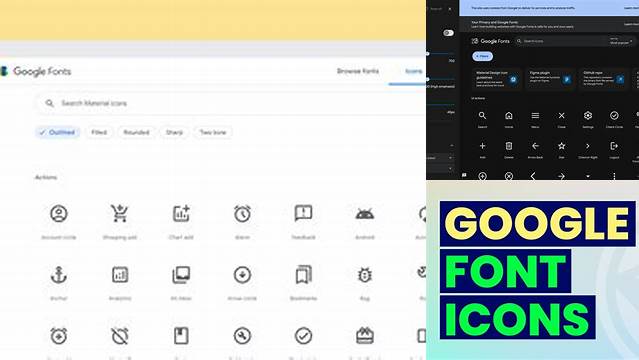
Link Google Fonts & Material Icons: A Comprehensive Guide
Hey guys! Ever wondered how to spice up your website's typography and icon game? Well, you've stumbled upon the right place! In this comprehensive guide, we're going to unravel the mysteries of linking Google Fonts using the <link href> tag and explore the awesome world of Material Icons. Buckle up, because we're about to embark on a journey to make your website visually stunning!
Understanding Google Fonts and Why They Matter
Google Fonts are a game-changer for web developers and designers. They offer a vast library of free, open-source fonts that you can seamlessly integrate into your website. Gone are the days of relying solely on system fonts, which often look bland and uninspired. With Google Fonts, you have the power to choose from a diverse range of typefaces, each with its unique personality and style. Why do Google Fonts matter so much? Well, typography plays a crucial role in shaping the user experience. The right font can enhance readability, convey your brand's identity, and even evoke emotions. Imagine a website with a clunky, hard-to-read font – it's like trying to listen to music through a broken speaker! Good typography creates a visual hierarchy, guides the user's eye, and makes your content more engaging. Using Google Fonts also means that your website will look consistent across different devices and browsers. No more font rendering inconsistencies or weird fallback fonts! Plus, Google Fonts are served from Google's super-fast CDN (Content Delivery Network), ensuring that your fonts load quickly and efficiently. This translates to a faster website loading time, which is crucial for user experience and SEO. Speaking of SEO, using web fonts like Google Fonts can indirectly improve your search engine ranking. A well-designed website with clear typography encourages visitors to stay longer and explore your content, which signals to search engines that your site is valuable. So, using Google Fonts isn't just about aesthetics; it's about creating a better overall experience for your users and boosting your website's performance. From sleek and modern sans-serif fonts to elegant and classic serif fonts, Google Fonts offers something for every design aesthetic. Experiment with different font pairings to find the perfect combination that reflects your brand's personality and enhances your website's message. By carefully choosing your fonts, you can transform your website from a plain canvas into a captivating masterpiece.
The <link href> Tag: Your Gateway to Google Fonts
Now, let's dive into the technical side of things. The <link href> tag is your trusty tool for connecting your website to external resources, including Google Fonts. Think of it as a bridge that allows your website to access the vast library of fonts hosted on Google's servers. How does this magic work? Well, the <link> tag lives in the <head> section of your HTML document. This is where you declare important metadata and links to external resources, such as CSS stylesheets and, of course, Google Fonts. The href attribute within the <link> tag specifies the URL of the resource you want to link to. In the case of Google Fonts, this URL will point to Google's Fonts API. When your browser encounters a <link href> tag pointing to Google Fonts, it sends a request to Google's servers to fetch the font files. These font files are then downloaded and applied to your website, bringing your chosen typefaces to life. The beauty of using the <link href> tag is its simplicity. It's a clean and efficient way to integrate Google Fonts without cluttering your HTML code with inline styles or JavaScript. Plus, the browser handles the font loading process in the background, ensuring that your website remains responsive and interactive. To use the <link href> tag for Google Fonts, you'll first need to head over to the Google Fonts website and choose the fonts you want to use. Once you've made your selections, Google Fonts will provide you with the necessary <link> tag code snippet. This snippet typically includes the href attribute pointing to the Google Fonts API, along with other attributes like rel (which specifies the relationship between the linked resource and your document) and stylesheet (which indicates that the linked resource is a CSS stylesheet). Simply copy and paste this code snippet into the <head> section of your HTML document, and you're good to go! You can link multiple fonts using separate <link href> tags, or you can combine multiple font requests into a single <link> tag for improved performance. The key is to ensure that the <link href> tags are placed before any CSS rules that use those fonts. This way, the browser will have the fonts available before it needs to render the text on your website. So, the <link href> tag is your essential tool for unlocking the power of Google Fonts and transforming your website's typography. It's a simple yet effective way to connect your website to a world of beautiful fonts and create a visually appealing experience for your users. With a few lines of code, you can elevate your website's design and make a lasting impression.
Unleashing the Power of Material Icons
Now, let's shift our focus to another visual element that can significantly enhance your website: Material Icons. These icons, designed by Google, are a set of beautiful, versatile, and open-source icons that you can use in your web projects. They cover a wide range of categories, from basic interface elements like arrows and buttons to more specialized icons for specific industries and applications. Why should you care about Material Icons? Well, icons play a crucial role in user interface design. They provide visual cues that help users navigate your website, understand the functionality of different elements, and quickly grasp information. A well-chosen icon can communicate a message much faster and more effectively than text alone. Material Icons are particularly appealing because they are designed with clarity and consistency in mind. They follow a unified visual style, ensuring that your website looks polished and professional. Plus, they are available in multiple sizes and densities, so you can use them on different devices and screen resolutions without sacrificing quality. Just like Google Fonts, Material Icons are incredibly easy to integrate into your website. You can use them as standalone images, embed them directly into your HTML using SVG code, or, the most common approach, use a link href tag to load them from Google's CDN. When you link Material Icons using a <link href> tag, you're essentially telling the browser to download a CSS stylesheet that contains the icon definitions. This stylesheet includes the necessary font files and CSS rules to display the icons on your website. Once you've linked the Material Icons stylesheet, you can use the icons by referencing their names in your HTML code. Each icon has a unique name, such as menu, search, or home. You can display an icon by using a <span> or <i> tag with the material-icons class and the icon name as the content. For example, to display the menu icon, you would use the following code: <i class="material-icons">menu</i>. The browser will then look up the menu icon in the Material Icons stylesheet and render it on your website. You can customize the appearance of Material Icons using CSS. You can change their size, color, and even add effects like shadows and transitions. This allows you to seamlessly integrate the icons into your website's design and create a cohesive visual experience. Material Icons can be used in a variety of ways on your website. You can use them in navigation menus, buttons, forms, and even within your content to highlight important information. They can also be used to create visual interest and break up long blocks of text. By incorporating Material Icons into your website, you can enhance its usability, improve its aesthetics, and create a more engaging experience for your users. They are a powerful tool for visual communication and a valuable asset for any web developer or designer. So, don't hesitate to explore the vast library of Material Icons and discover how they can transform your website.
Combining Google Fonts and Material Icons for a Visual Symphony
Now that you're familiar with both Google Fonts and Material Icons, let's explore how you can combine them to create a truly stunning visual experience on your website. Think of Google Fonts as the voice of your website and Material Icons as its gestures. Just as a captivating speaker uses both words and body language to engage their audience, a well-designed website uses both typography and icons to communicate effectively. The key to combining Google Fonts and Material Icons successfully is to find the right balance. You want to choose fonts and icons that complement each other and create a cohesive visual style. This means considering factors like font weight, icon size, and color palette. For example, if you're using a bold, modern sans-serif font, you might want to pair it with clean, minimalist Material Icons. On the other hand, if you're using a more traditional serif font, you might opt for icons with a slightly more classic feel. It's also important to consider the context in which you're using the fonts and icons. Are you using them for headings, body text, or interactive elements like buttons and menus? The specific use case will influence your choice of fonts and icons. For headings, you might choose a larger, more eye-catching font, while for body text, you'll want a font that's easy to read and comfortable for extended reading. Similarly, you might use larger, more prominent icons for important call-to-actions, while smaller, more subtle icons can be used for secondary elements. When combining Google Fonts and Material Icons, it's crucial to maintain consistency throughout your website. Use the same fonts and icons across different pages and sections to create a unified visual identity. This will help users navigate your website more easily and reinforce your brand's message. Experiment with different font and icon pairings to find the perfect combination for your website. Try using different font weights and styles to create visual hierarchy and highlight important information. You can also use color to differentiate between different types of icons or to emphasize certain elements on your page. Remember, the goal is to create a visual symphony where the fonts and icons work together harmoniously to convey your message and engage your audience. By carefully choosing and combining Google Fonts and Material Icons, you can elevate your website's design and create a truly memorable user experience. So, go ahead and unleash your creativity! Explore the vast possibilities and discover how these powerful tools can transform your website from a plain canvas into a captivating masterpiece.
Best Practices for Linking and Using Google Fonts and Material Icons
Alright, guys, let's wrap things up by discussing some best practices for linking and using Google Fonts and Material Icons. These tips will help you ensure that your website is performant, accessible, and visually appealing. First and foremost, performance is key. When linking Google Fonts, it's best to use the <link href> tag method, as we discussed earlier. This is the most efficient way to load fonts, as it allows the browser to download the font files in the background without blocking the rendering of your page. Avoid using the @import method in your CSS, as this can slow down your website's loading time. When choosing fonts, be mindful of the number of font families and styles you're using. Each font file adds to the overall size of your website, so it's best to keep it to a minimum. Stick to a maximum of 2-3 font families and use only the styles you need (e.g., regular, bold, italic). For Material Icons, it's also crucial to use the <link href> tag method to load the stylesheet from Google's CDN. This ensures that the icons are served from a fast and reliable source. When using Material Icons, consider using icon fonts instead of raster images. Icon fonts are scalable, lightweight, and can be easily styled with CSS. This makes them a more efficient and flexible choice for web development. Accessibility is another crucial factor to consider. When choosing fonts, ensure that they are legible and have sufficient contrast with the background color. This is especially important for users with visual impairments. Avoid using fonts that are too small or too decorative, as they can be difficult to read. For Material Icons, provide alternative text for icons that convey important information. This can be done using the aria-label attribute or by including a visually hidden text label alongside the icon. This ensures that users who are using screen readers can understand the meaning of the icons. Visual consistency is essential for creating a professional and user-friendly website. Use the same fonts and icons across different pages and sections to create a unified visual identity. This helps users navigate your website more easily and reinforces your brand's message. When combining Google Fonts and Material Icons, choose fonts and icons that complement each other and create a cohesive visual style. Consider factors like font weight, icon size, and color palette. Finally, test your website thoroughly across different devices and browsers to ensure that the fonts and icons are rendering correctly. Use browser developer tools to check for any font loading errors or performance issues. By following these best practices, you can ensure that you're using Google Fonts and Material Icons effectively to create a website that is both visually appealing and user-friendly. Remember, typography and icons are powerful tools for visual communication, so use them wisely to enhance your website's design and engage your audience.
In conclusion, mastering the art of linking Google Fonts using <link href> and leveraging Material Icons can significantly elevate your website's visual appeal and user experience. By following the best practices discussed, you can create a website that not only looks stunning but also performs optimally and is accessible to all users. So, go ahead, experiment with different font and icon combinations, and unleash your creativity to craft a website that truly stands out!